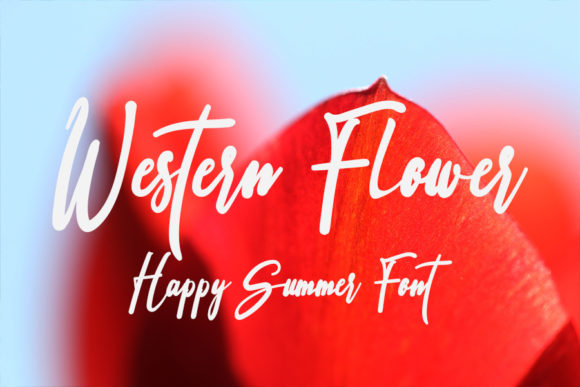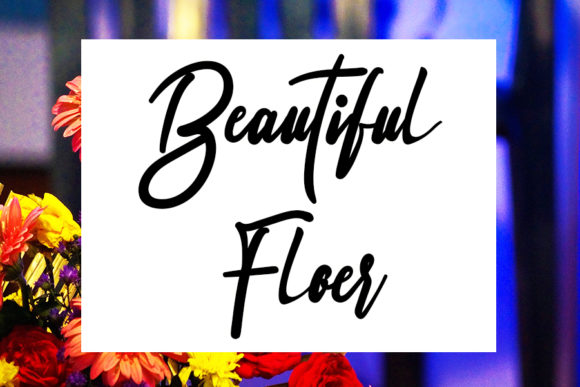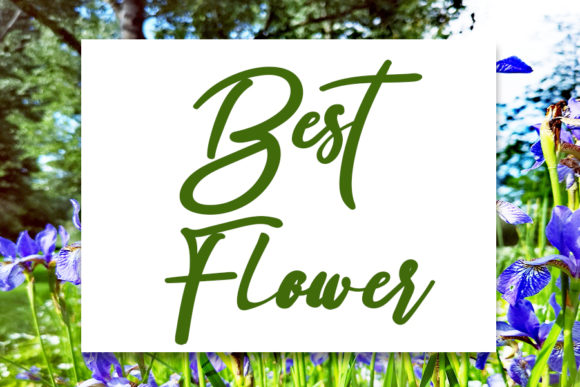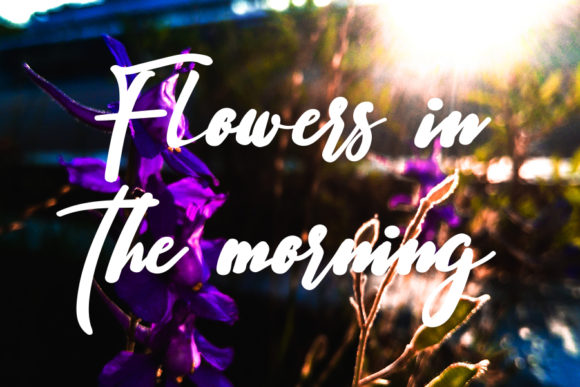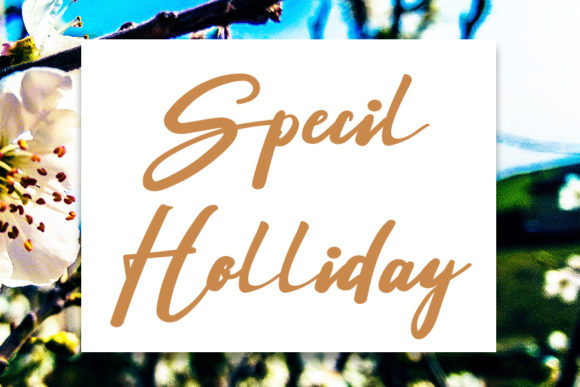
Western Flower Font
About Western Flower Font
Western Flower is not just a font; it’s a journey into the world of elegance and creativity. With its flowing handwritten style, this font carries an air of sophistication that’s perfect for all your favorite design projects. It’s like a brush dipped in inspiration, ready to paint your ideas onto the canvas of creativity.
Imagine the charm of Western Flower gracing the pages of a wedding invitation. Its elegant curves and delicate strokes capture the essence of romance, setting the tone for a truly memorable event. Picture it on a greeting card, conveying heartfelt messages with a touch of artistic grace. From logos to business cards, every design that craves a handwritten touch will be transformed by Western Flower.
The distinctiveness of Western Flower is what sets it apart. It’s not just a font; it’s an expression of individuality. Each curve, each letter is a brushstroke of creativity, creating a unique visual identity for your projects. The timeless nature of the font ensures that your designs will remain relevant and captivating for years to come.
Western Flower isn’t just about letters; it’s about emotions. It’s about capturing feelings in every stroke, turning mere words into expressions that resonate. The elegant touch of the font adds a touch of class to your designs, whether it’s a quote, a headline, or a social media post. It transforms mundane text into a visual experience that’s both captivating and memorable.
The versatility of Western Flower is another one of its strengths. It seamlessly adapts to various themes and styles, from vintage to modern, rustic to elegant. Its flowing nature brings movement and life to your designs, making them dynamic and engaging. Whether you’re designing for a brand, an event, or personal projects, Western Flower will enhance your creative endeavors.
So, fall in love with Western Flower, the font that breathes life into your projects. It’s not just a font; it’s a partner in your creative journey. It’s a tool that empowers you to tell stories, convey emotions, and make an impact. As you explore its potential, you’ll find that Western Flower isn’t just a font—it’s an artistic statement that elevates your designs to new heights.